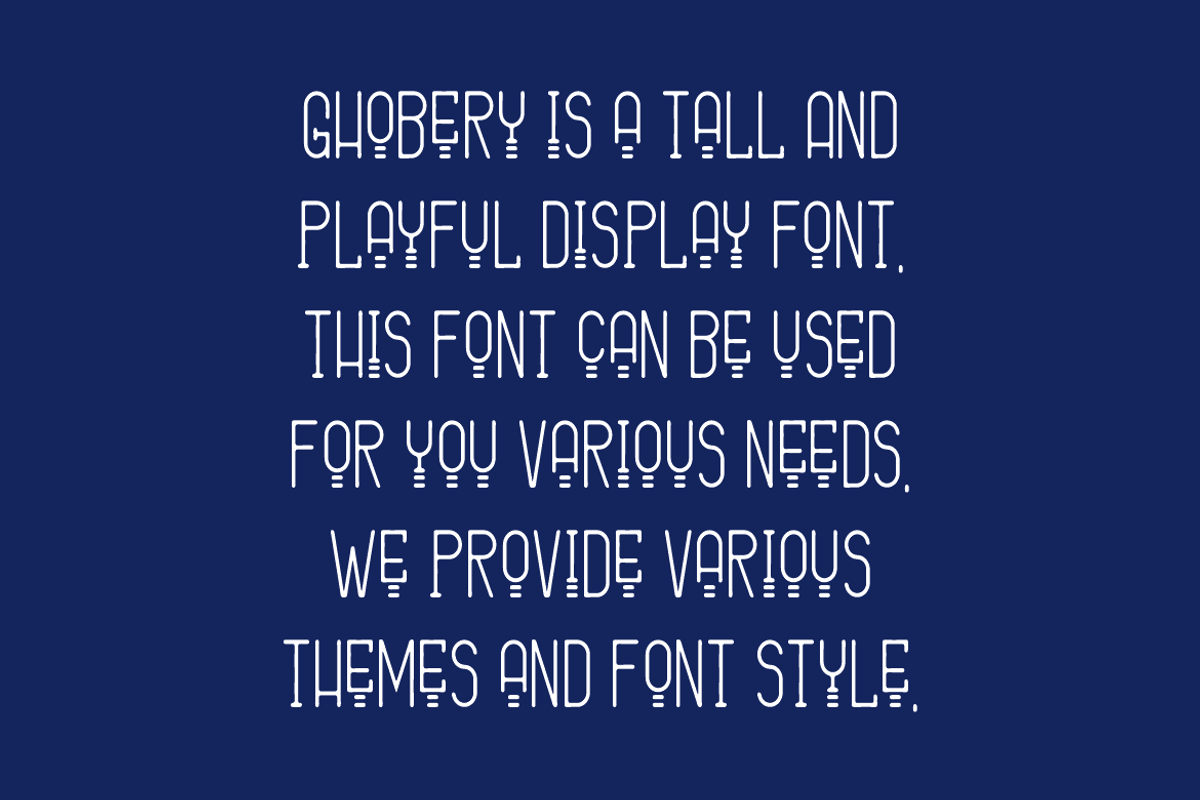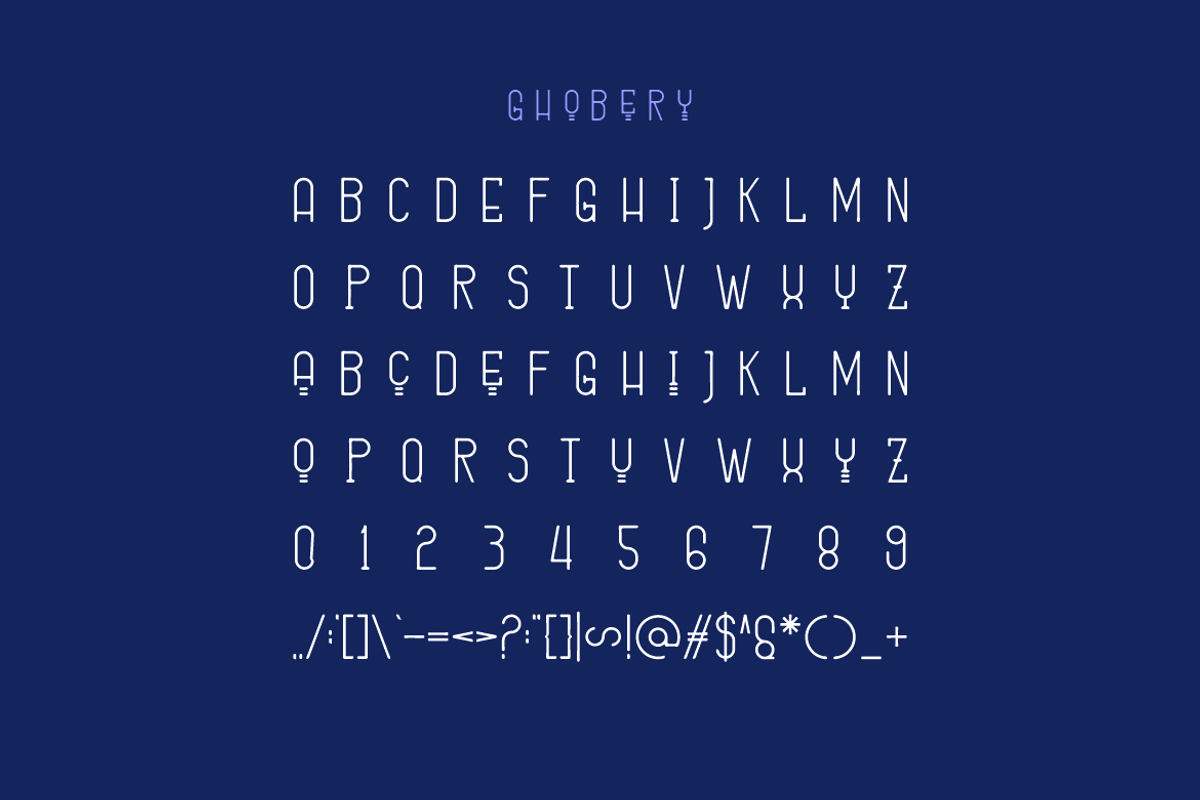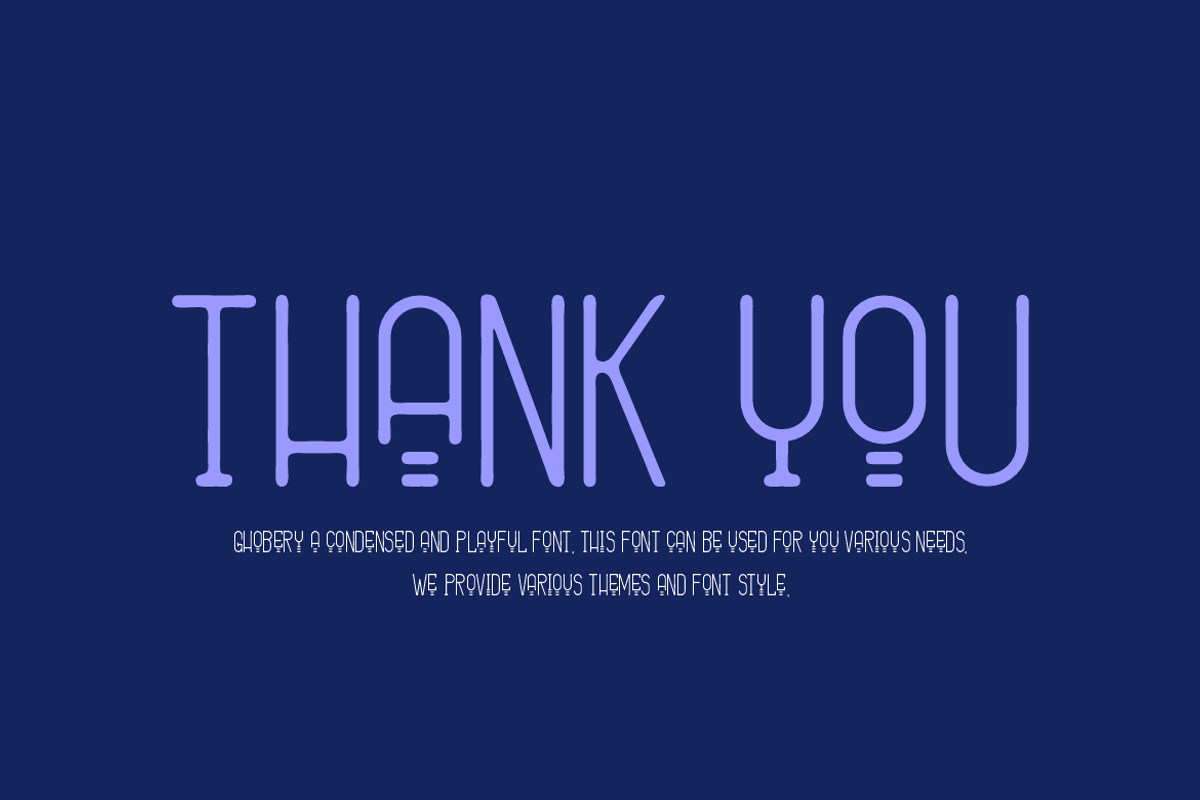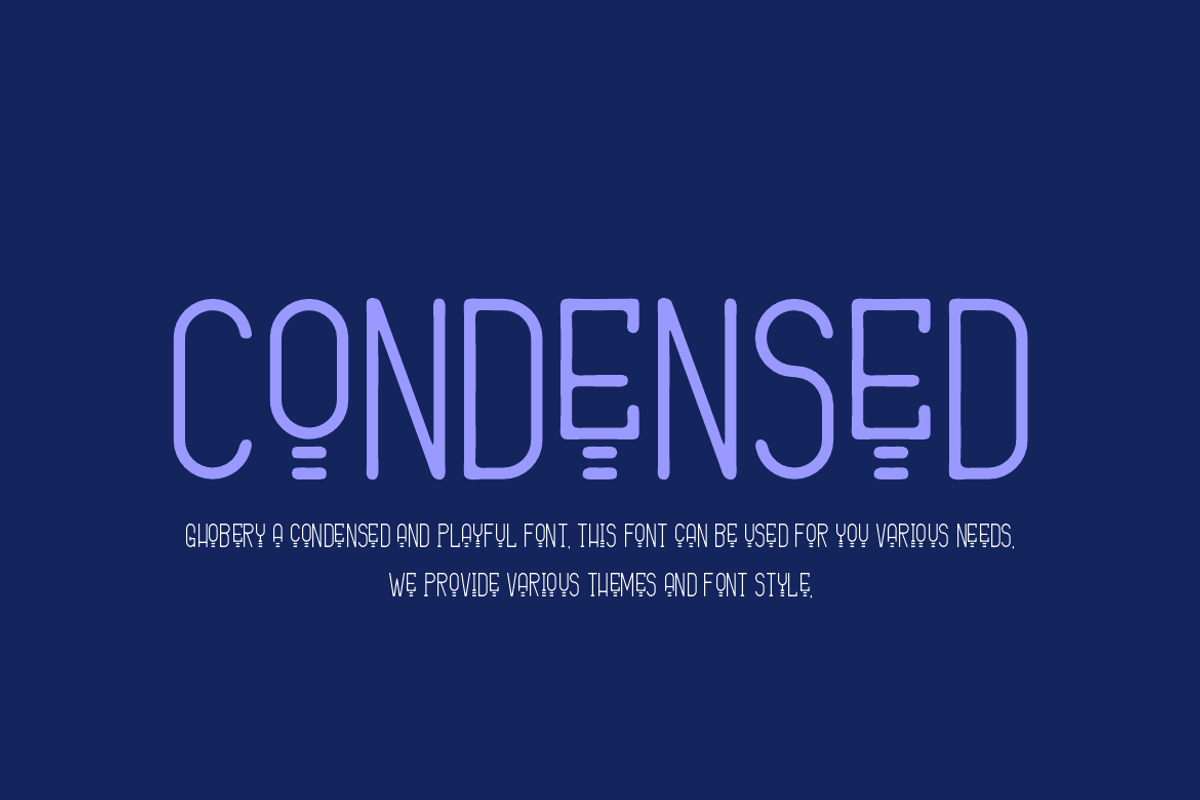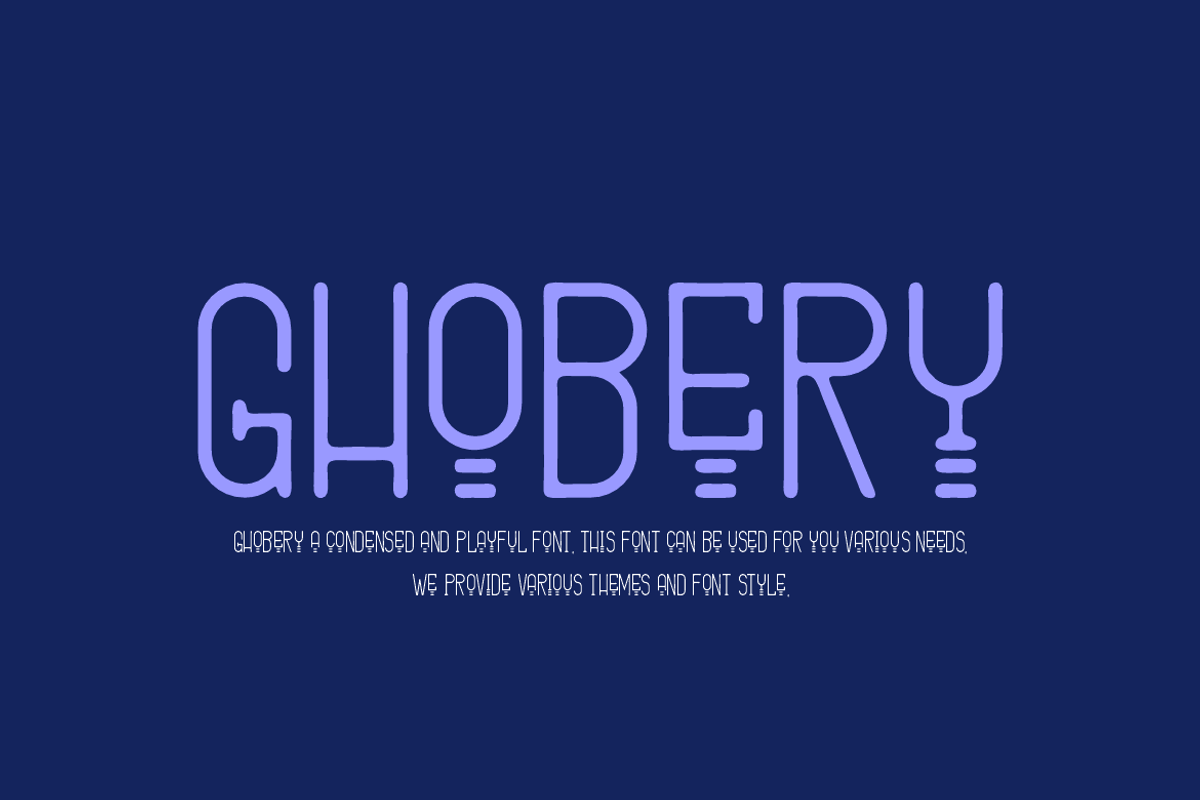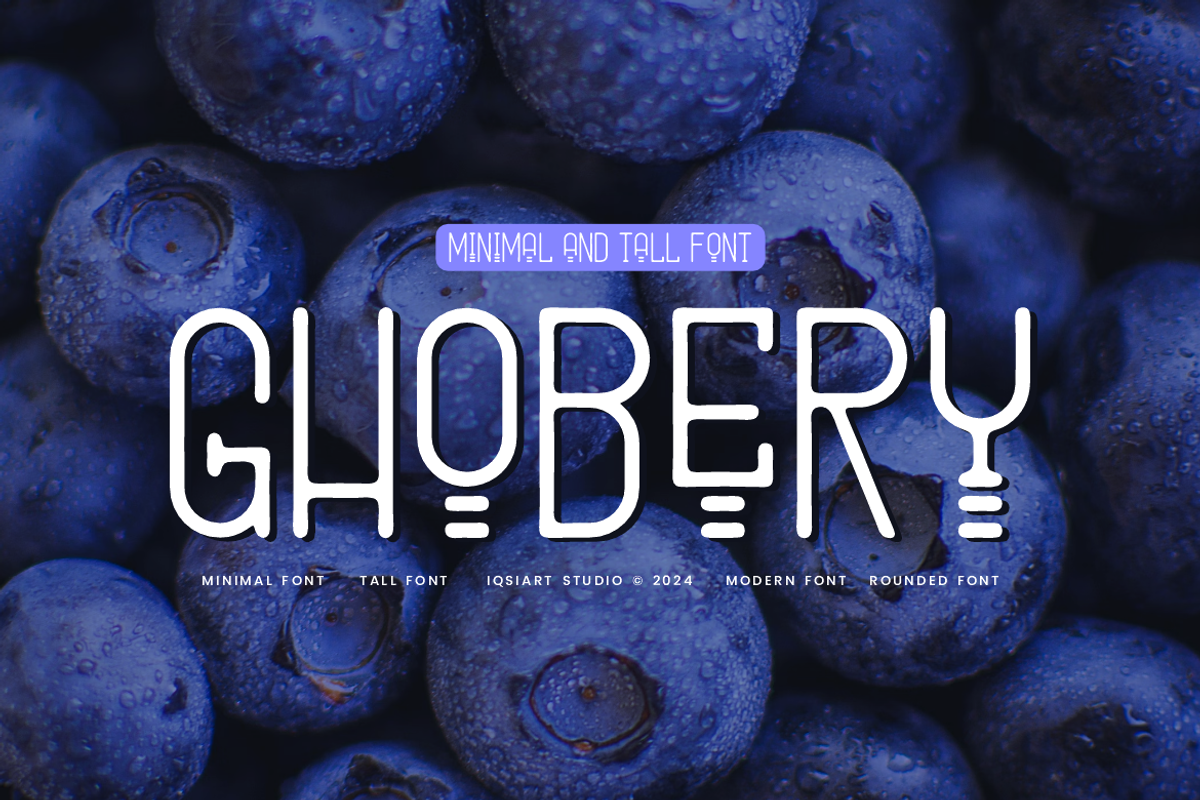
Ghobery - Tall Font
Ghobery Font is a best and authentic display font. This font can be used for your various needs. We provide various themes and font styles. visit our profile to get a wide variety of themes and different font styles you need.